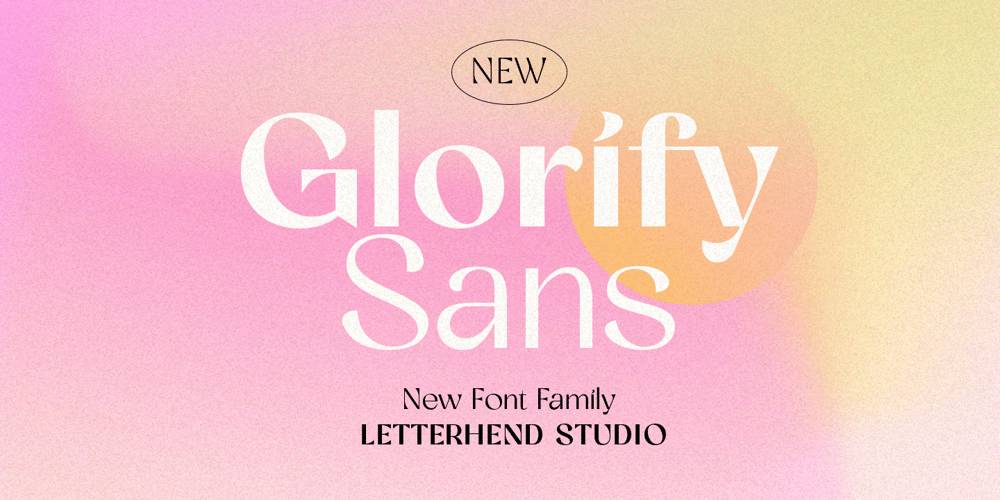
Glorify Sans Font Family was designed by Hendry Juanda and published by Letterhend. Glorify Sans contains 8 styles and family package options. Glorify Sans is a sophisticated sans serif with many weight style to choose from. You will get 8 weight styles which you can play around to match your project, whether for a standout headline, or for a tagline, you name it. The unique letterform makes this font one of a kind! Perfectly to be applied to the other various formal forms such as invitations, labels, logos, magazines, books, greeting / wedding cards, packaging, fashion, make up, stationery, novels, labels or any type of advertising purpose.Features : 8 weight style uppercase & lowercase numbers and punctuation multilingual alternates & ligatures PUA encoded We highly recommend using a program that supports OpenType features and Glyphs panels like many of Adobe apps and Corel Draw, so you can see and access all Glyph variations. How to access opentype feature : letterhend.com/tutorials/using-opentype-feature-in-any-software/